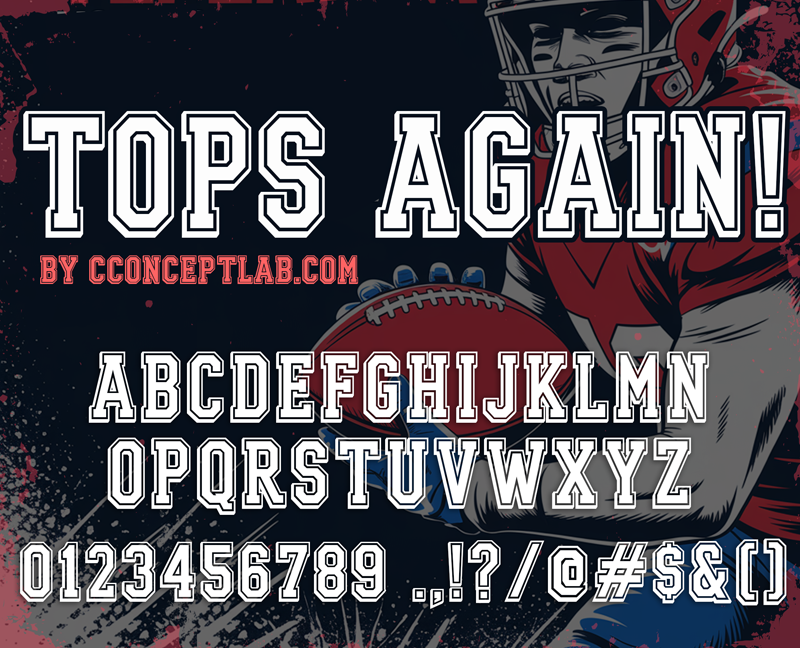
Font name: | Tops Again! |
Author: | CconceptLab |
TOPS AGAIN! College theme typeface with a clean special shadow styles perfect for your university tshirts, posters, and other sporty projects. All Capital letters. 100% free for personal use only, accepts donations :) - Full Version and Commercial Use, available at Website: https://cconceptlab.com/collections/fonts ENJOY! www.CconceptLab.com |